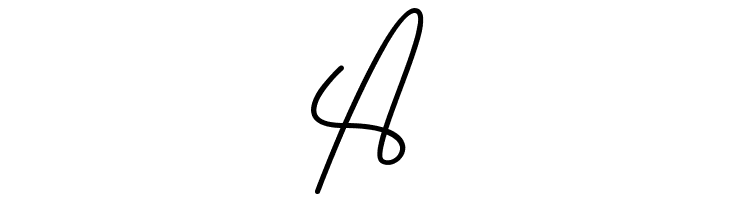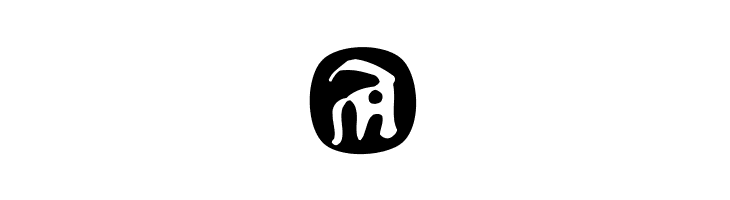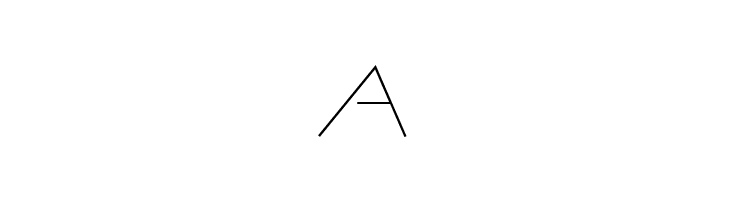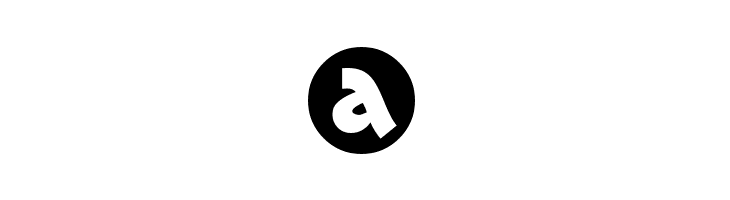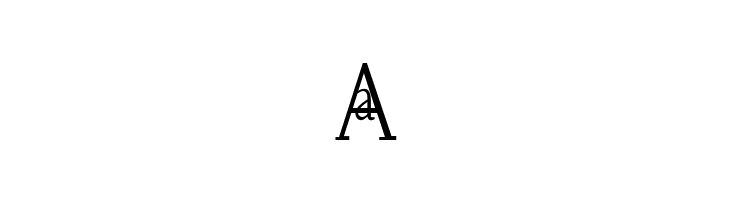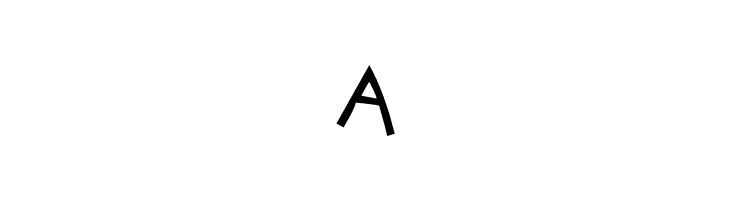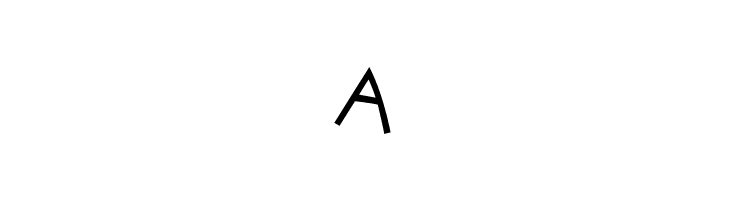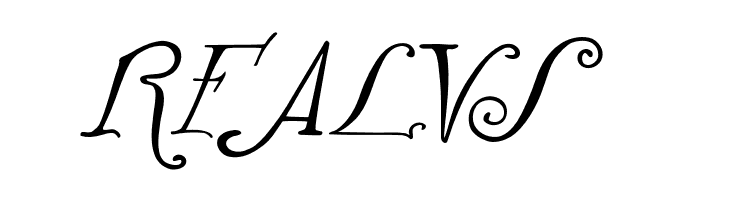
• JMHWeirdTalesTitCaps-Regular
An ornate and whimsical font with decorative curls and swashes.
• JMHWolfa-Regular
• JMHWulfila-Regular
A bold, ornate blackletter font with a medieval aesthetic.
• JMHWulfilaNew-Regular
A bold, ornate blackletter font with a gothic, medieval style.
• JMHZarracena-Regular
A bold, decorative font with sharp serifs and high contrast, ideal for dramatic displays.
• JMHZarracenaAlt-Regular
An ornate and decorative font with sharp serifs and dramatic curves.
• Joanne's Freehand
( Fonts by Joanne Blanco )
A playful, handwritten-style font with a casual and friendly vibe.
• JoaoCond-Light
A modern, elegant serif font with a slightly condensed style.
• JoaoImprovisations
An artistic and complex font with overlapping lines and decorative elements.
• Jocker FREE
A bold, hand-drawn font with a distressed, energetic style.
• Jocker Free Extrude Right
A bold, decorative font with a 3D extruded effect and vintage flair.
• Jocker Free Outline
An outline decorative font with a vintage, playful style.
• Jockey Black
A bold, dynamic font with playful, slanted characters and thick strokes.
• Jockey Bold
A bold, playful font with dynamic, irregular letterforms.
• Jockey Oblique
A playful, oblique font with bold, dynamic characters and a whimsical style.
• JoeCaxton
A classic blackletter font with ornate, angular letterforms.
• JoeLouis Normal
A bold, geometric font with a modern and professional style.
• Johanna bold
A bold, rounded font with a playful and friendly style.
• Johanna bold
A bold, rounded font with playful curves and consistent stroke width.
• JohannesGLastTraces
A bold, modern font with characters in rounded black squares, blending calligraphy and graffiti styles.
• John Doe